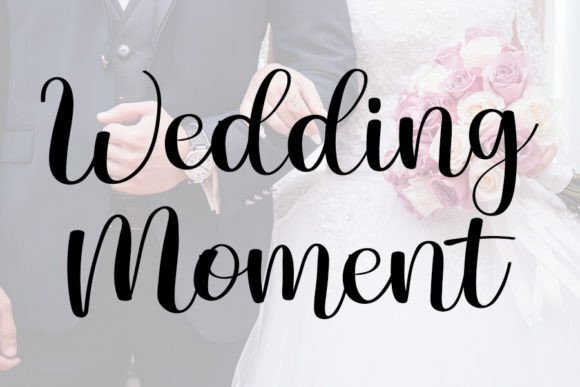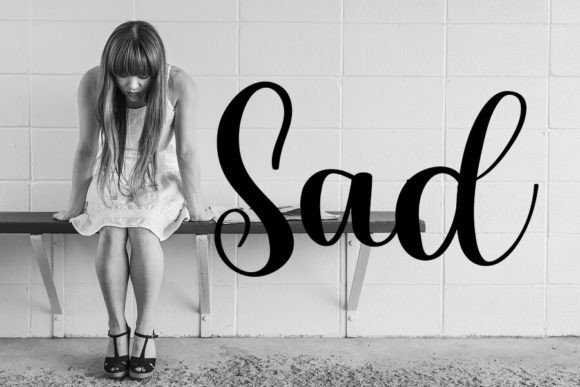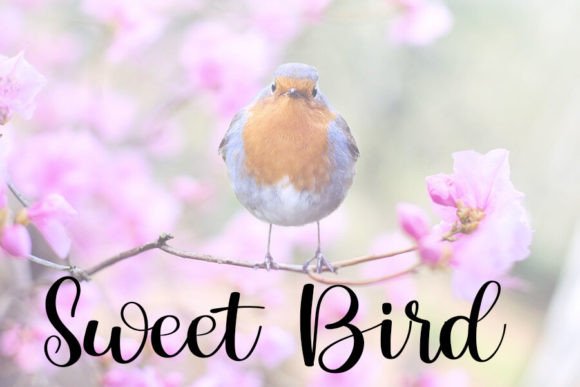
Dressing Font: Elevate Your Designs with Elegance and Sophistication
Are you on the hunt for a font that exudes luxury, sophistication, and a touch of modern flair? Look no further than Dressing Font, a stunning handwritten typeface that is sure to become your new favorite. With its masterful blend of classic calligraphic influences and contemporary style, Dressing Font is the perfect choice for designers and crafters looking to elevate their projects to new heights.
The Art of Elegance: What Makes Dressing Font So Special?
Dressing Font is a true masterpiece of font design, boasting an exquisite handwritten aesthetic that is both refined and elegant. Its classy calligraphic influences are expertly woven throughout the font, giving it a sense of sophistication and poise that is hard to find in modern typography. And yet, despite its classic roots, Dressing Font also feels remarkably fresh and contemporary, making it the perfect choice for designers looking to create projects that are both timeless and on-trend.
Unleash Your Creativity with Dressing Font
Whether you’re a seasoned designer or a crafty DIY enthusiast, Dressing Font is the perfect tool for bringing your creative vision to life. With its versatile and highly legible design, Dressing Font can be used for a wide range of projects, from elegant wedding invitations and sophisticated business cards to beautiful blog headers and stylish social media graphics.
Key Features of Dressing Font
- Exquisite Handwritten Aesthetic: Dressing Font boasts a beautiful, handwritten design that is both elegant and refined.
- Classy Calligraphic Influences: The font’s classic calligraphic influences give it a sense of sophistication and poise.
- Contemporary and Fresh: Despite its classic roots, Dressing Font feels remarkably fresh and contemporary.
- Highly Legible: The font’s clear and elegant design makes it highly legible, even at small sizes.
- Versatile: Dressing Font can be used for a wide range of projects, from elegant wedding invitations to stylish social media graphics.
Why Designers and Crafters Love Dressing Font
Dressing Font has quickly become a favorite among designers and crafters, and it’s easy to see why. With its unique blend of classic elegance and modern flair, Dressing Font offers a level of sophistication and refinement that is hard to find in modern typography. Whether you’re looking to create elegant stationery, stylish branding materials, or beautiful digital graphics, Dressing Font is the perfect choice.
Tips for Getting the Most Out of Dressing Font
To truly get the most out of Dressing Font, here are a few tips to keep in mind:
- Experiment with Different Sizes: Dressing Font looks beautiful at a wide range of sizes, from elegant headlines to smaller body text.
- Play with Color: The font’s elegant design looks stunning in a wide range of colors, from classic black and white to bold and bright hues.
- Combine with Other Fonts: Dressing Font pairs beautifully with a wide range of other fonts, making it easy to create stunning multi-font designs.